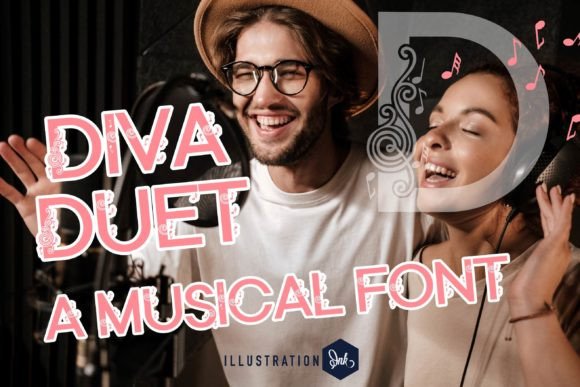
Searching for an enchanting font that harmonizes perfectly with your creative vision? Look no further than the captivating Diva Duet font, a symphony of script and elegance meticulously crafted by Illustration Ink.
Immerse yourself in the whimsical world of Diva Duet, where every letter dances with a graceful flourish adorned with musical notes. This alluring sans serif font is an enchanting melody for your digital canvas. Whether you're crafting heartfelt greeting cards, engaging presentations, or adding a touch of magic to your digital designs, Diva Duet's versatility will orchestrate a symphony of possibilities.
With Diva Duet at your fingertips, your creative projects will resonate with a harmonious blend of style and charm. Let this font be the maestro of your artistic journey, guiding your creations to a crescendo of elegance. Whether you're a seasoned designer or a budding enthusiast, Diva Duet is the perfect accompaniment to add a touch of sophisticated flair to your masterpieces. Embrace the enchanting allure of Diva Duet today and let your creativity soar to new heights!